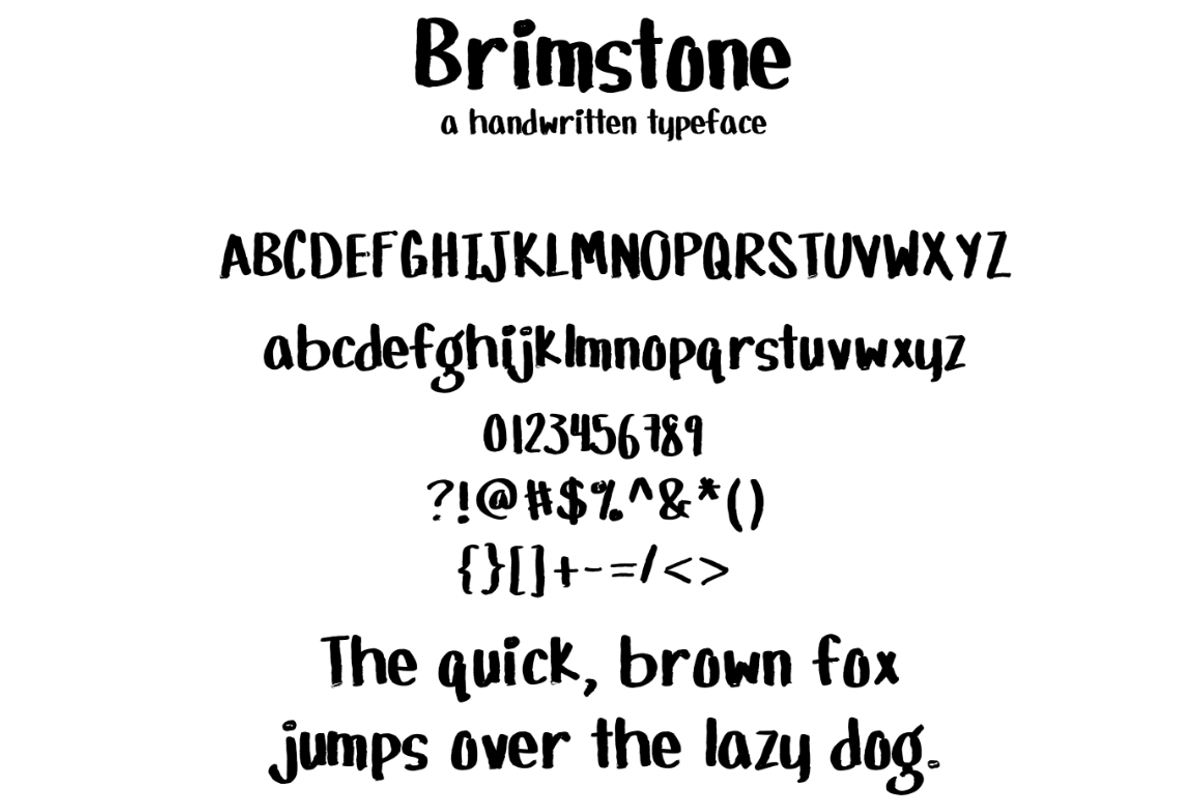
Brimstone- Handwritten Font
Brimstone- Handwritten Font by Sabrina Schleiger Design is a font selected for branding, posters, packaging, typography.
Why Brimstone- Handwritten Font is worth a look
Brimstone- Handwritten Font by Sabrina Schleiger Design fits naturally into Branding, posters, packaging, typography.